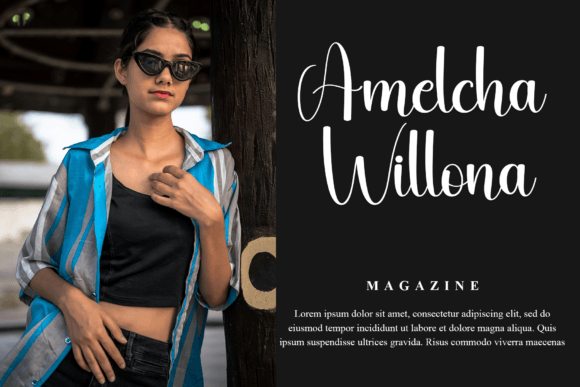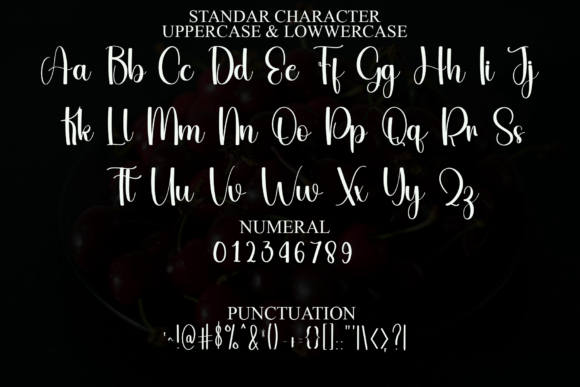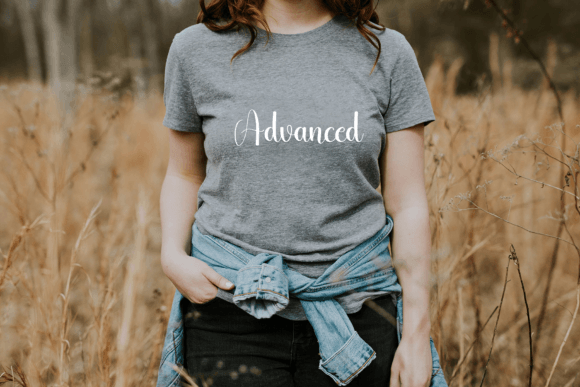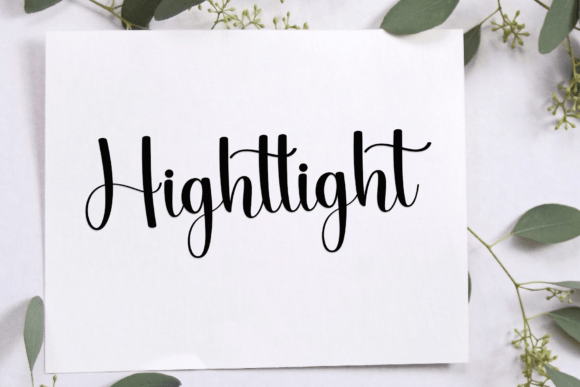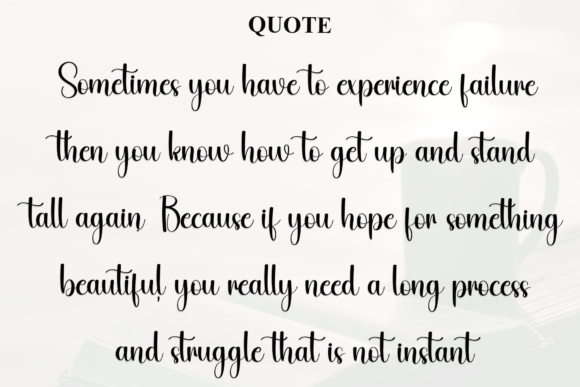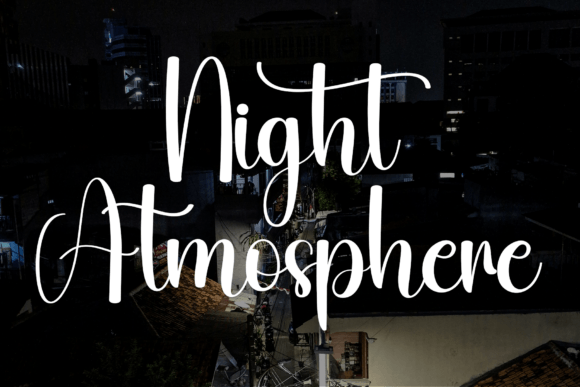
Introduction to Night Friday Font
Have you ever stared at a blank canvas, struggling to find the perfect font to bring your creative project to life? That’s where Night Friday Font comes in – a beautiful and eye-catching typeface that adds a touch of elegance to any design. With its soft, unique strokes, this font is sure to make your projects stand out and leave a lasting impression.
Key Features of Night Friday Font
- Unique blend of modern and vintage styles, perfect for creative projects.
- Designed to be highly legible, making it perfect for use in body text and headings.
Honest Review: Night Friday Font
I recently stumbled upon the Night Friday Font, and I must say it’s a great addition to any design resource. This font is perfect for creative projects that require a touch of elegance and sophistication.
- High-quality design: The Night Friday Font has a crisp, clean design that makes it perfect for print or digital applications.
While the Night Friday Font is a great resource, there are a few limitations to consider:
- Limited font weights: The font only comes in a few weights, which may limit its versatility in certain design projects.
- No italics or bold: Unfortunately, the font doesn’t include italic or bold variations, which may make it less suitable for certain text-based designs.
Overall, the Night Friday Font is a solid choice for designers looking for a high-quality, elegant font for their creative projects. While it may have some limitations, its strengths make it a valuable addition to any design resource.
Introduction to Night Friday Font
The Night Friday Font is a high-quality design resource that can elevate your creative project. With a transparent background, this font is versatile and can be used in various applications.
Tips for Getting the Most Out of Night Friday Font
To get the most out of the Night Friday Font, use it in combination with other high-quality design resources. Experiment with different font sizes, colors, and layouts to create a unique design.
The Night Friday Font is commonly used in creative projects such as logos, posters, and social media graphics. It’s also suitable for use in presentations, reports, and other business documents.